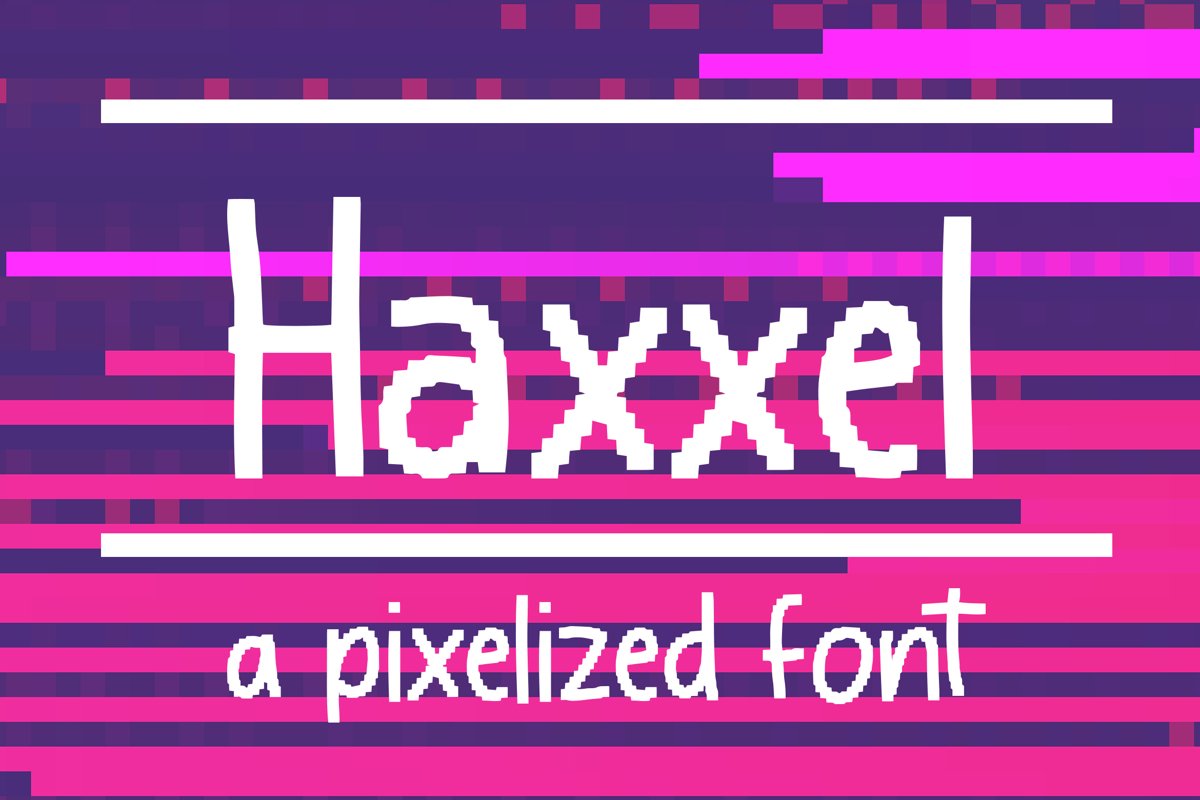
Haxxel - Pixel Fonts that contain lowercase, uppercase, symbol, and also support multi language. There’s a lot ligatures in this font. This Font also comes with ligatures, alternates and many more. this font suitable for fashion, branding, catalog and other design what you want.
Haxxel